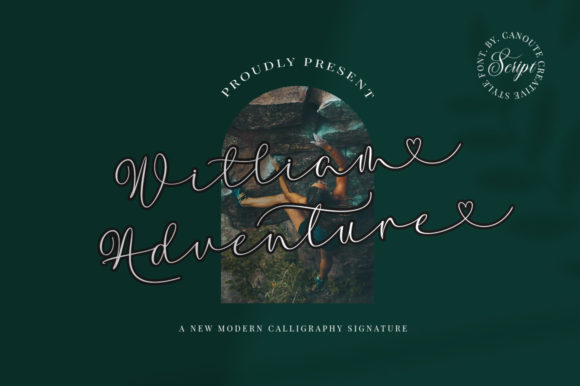
About William Adventure Font
William Adventure is a distinct graceful script font. Fall for its ravishing style and use it to create gorgeous designs. This font is PUA encoded which means you can access all glyphs and swashes with ease!